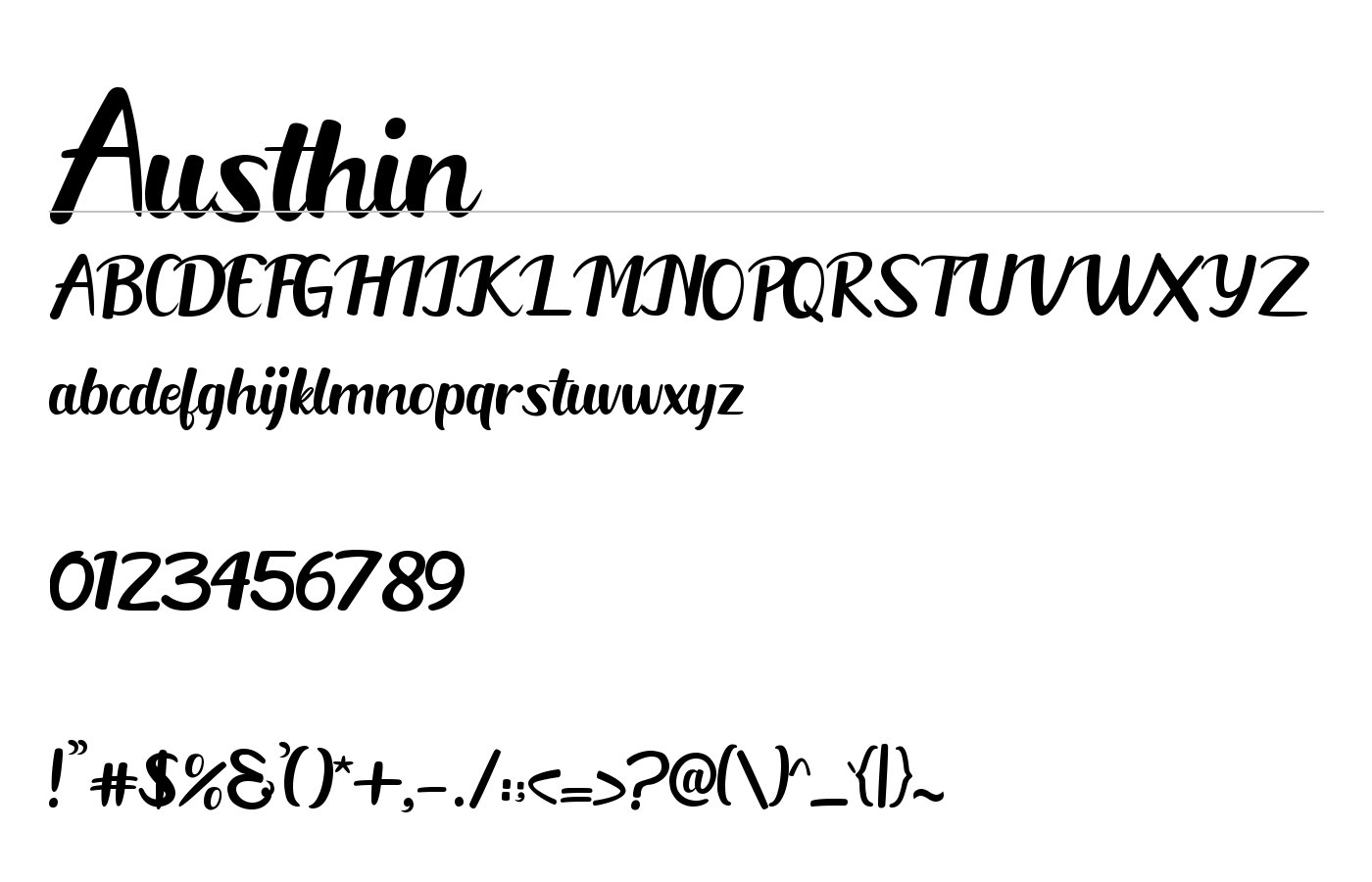
Austhin is a smooth, casual script font that combines a friendly, handwritten feel with clean, modern strokes. Its medium weight, slightly condensed letterforms, and subtle slant give it a lively yet approachable personality, making it perfect for branding, invitations, and creative projects that seek warmth and elegance without formality. The font's clear readability and charming style make it versatile for both headlines and display use.
Austhin Font